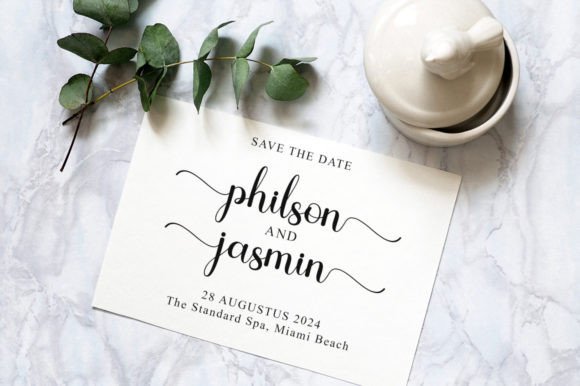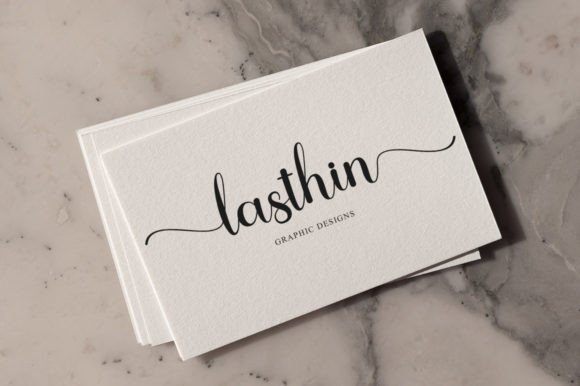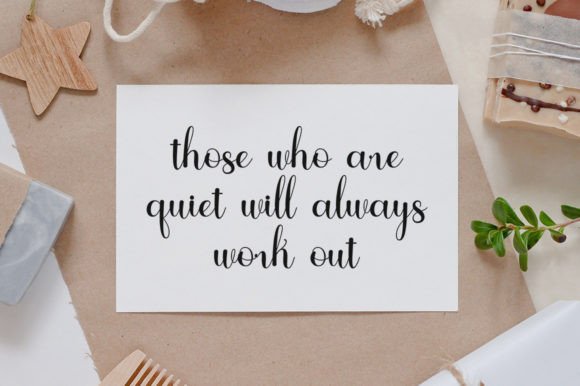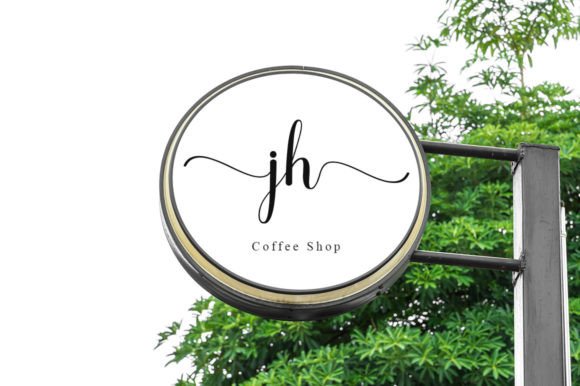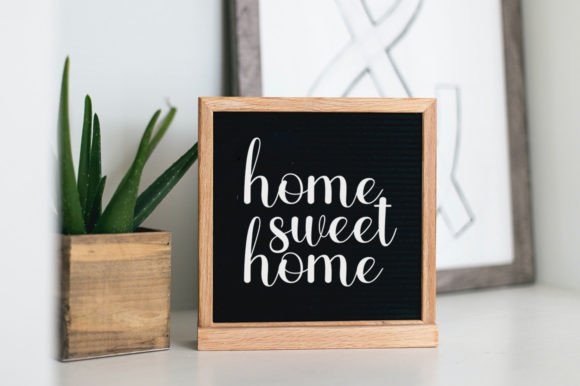
Introducing Caslove Font: The Perfect Handwritten Touch for Your Designs
Are you a designer or crafter looking for a font that exudes elegance and charm? Look no further than Caslove Font! This beautiful handwritten font is perfect for adding a personal touch to your designs, and its versatility makes it suitable for a wide range of projects.
What Makes Caslove Font So Special?
Caslove Font feels equally charming and elegant, making it an excellent choice for designs that require a sophisticated and refined look. Its stunning appearance is perfect for wedding invitations, thank you cards, quotes, greeting cards, logos, business cards, and every other design that needs a handwritten touch.
One of the standout features of Caslove Font is its PUA (Private Use Area) encoding. This means that you can access all the glyphs and ligatures with ease, giving you complete creative control over your designs. Whether you’re a seasoned designer or a crafty DIY enthusiast, Caslove Font is easy to use and offers endless possibilities for customization.
Wedding designers and event planners, rejoice! Caslove Font is an excellent choice for creating beautiful wedding invitations, save-the-date cards, and other event materials. Its elegant and charming appearance sets the tone for a sophisticated and memorable event.
Imagine creating stunning wedding stationery, complete with intricate details and personalized touches. Caslove Font makes it easy to add a handwritten touch to your designs, giving them a warm and inviting feel that’s sure to impress.
Ideal for Crafters and DIY Enthusiasts
Caslove Font is not just for professional designers; it’s also perfect for crafters and DIY enthusiasts who love to create personalized gifts and decorations. Whether you’re making handmade cards, gift tags, or other crafts, Caslove Font adds a touch of elegance and sophistication to your projects.
With Caslove Font, you can create beautiful and unique gifts for friends and family, or add a personal touch to your home decor. The font’s versatility and ease of use make it an excellent choice for crafters of all skill levels.
Key Features of Caslove Font
• PUA encoded: Easy access to all glyphs and ligatures for complete creative control
• Elegant and charming appearance: Perfect for designs that require a sophisticated and refined look
• Versatile: Suitable for a wide range of projects, including wedding invitations, thank you cards, quotes, greeting cards, logos, and business cards
Caslove Font is a beautiful and versatile handwritten font that’s perfect for designers and crafters alike. Its elegant and charming appearance makes it suitable for a wide range of projects, from wedding invitations and event materials to handmade crafts and DIY projects.